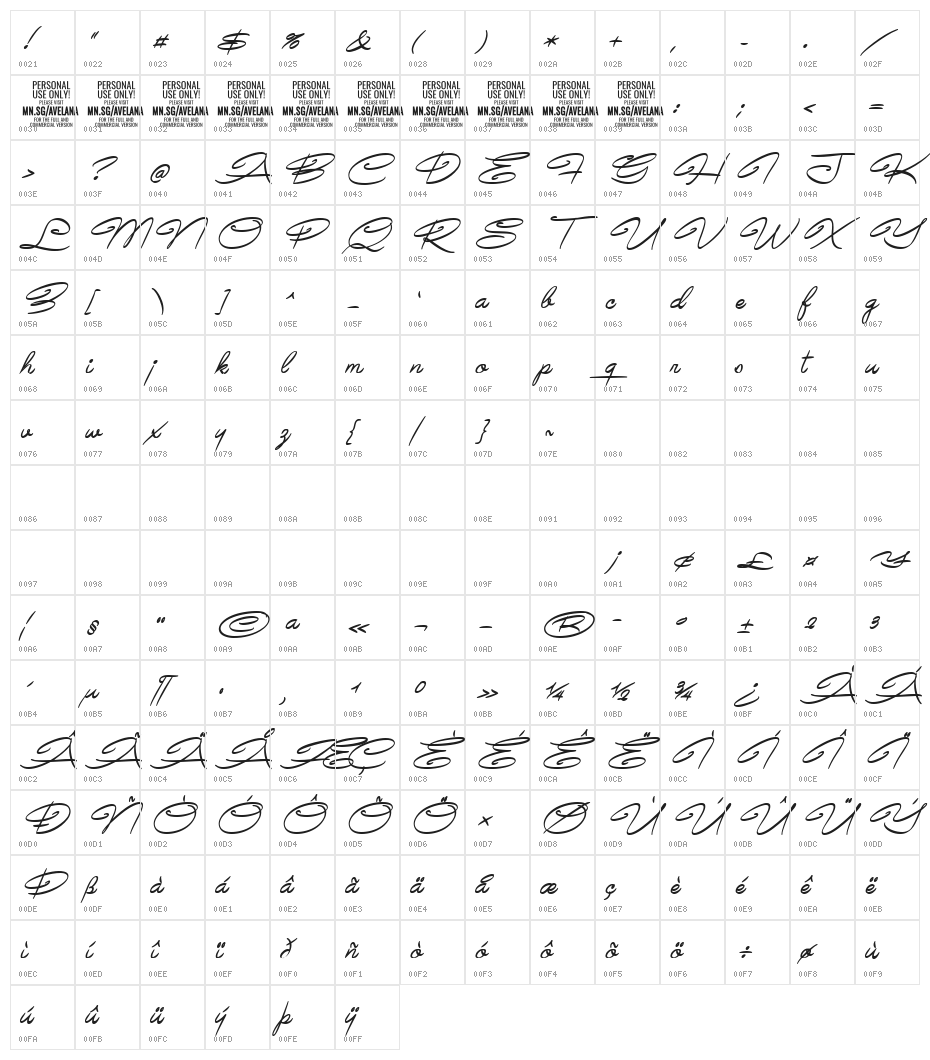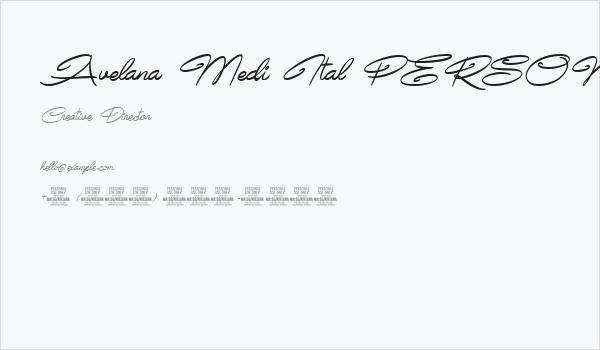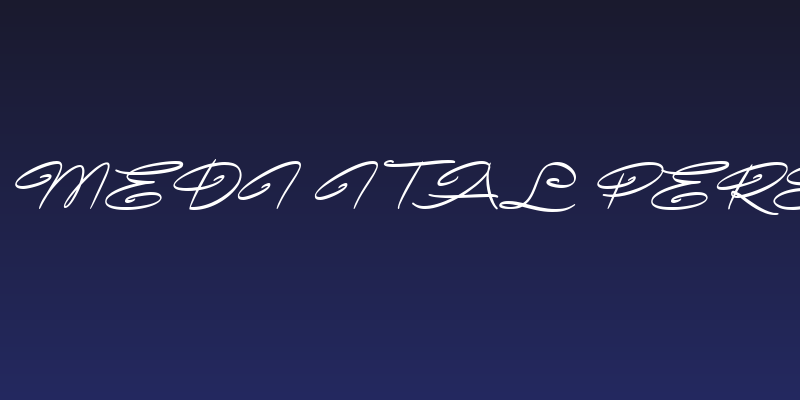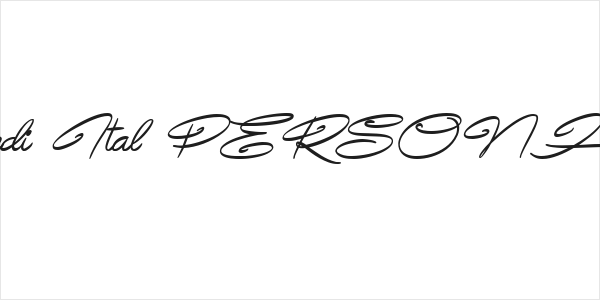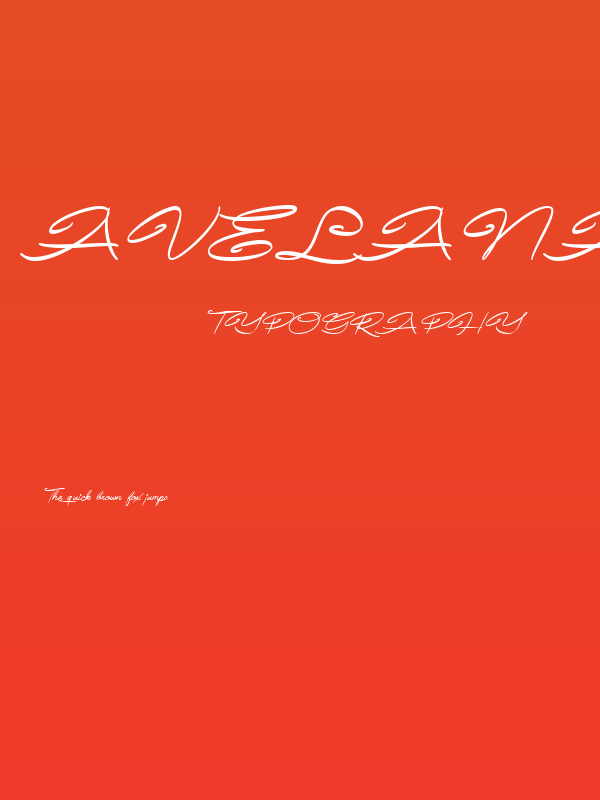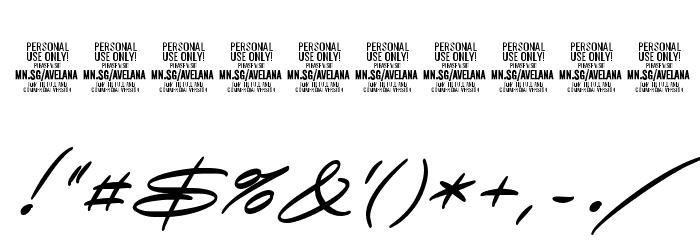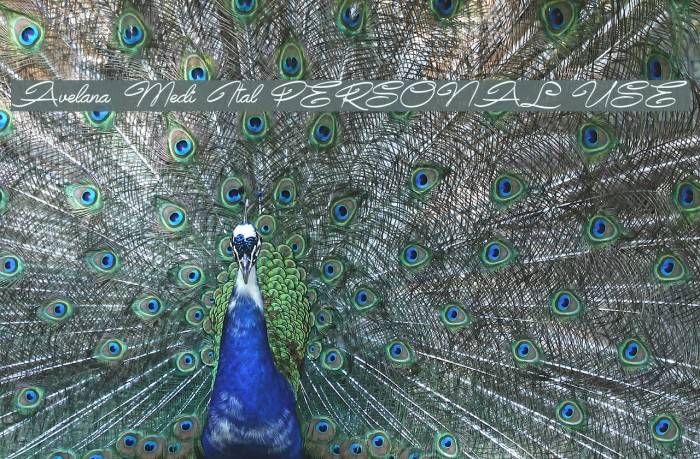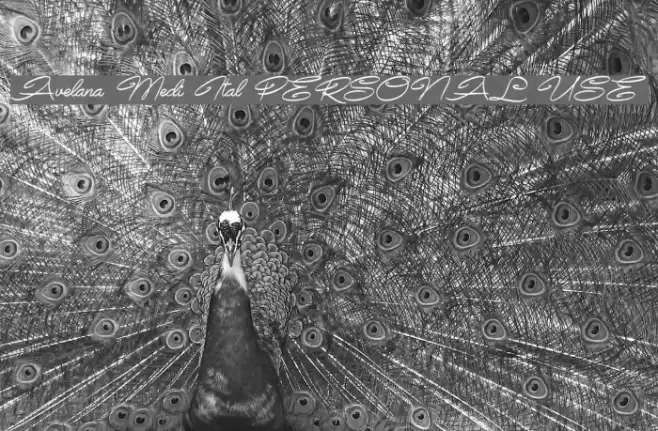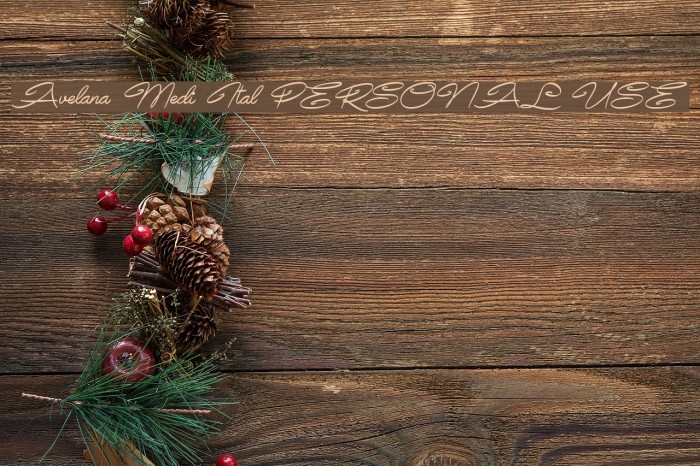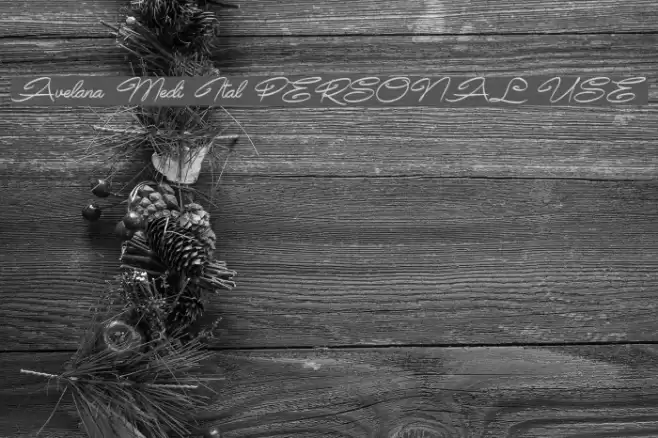
Avelana Medi Ital PERSONAL USE Font
Avelana Medi Ital PERSONAL USE Description
This font features an elegant and flowing script style, characterized by its smooth, cursive letterforms. The uppercase letters exhibit a graceful, looping design, while the lowercase letters maintain a consistent, fluid motion. The font's strokes are moderately thick, providing a balanced contrast that enhances readability while maintaining an artistic flair. The special characters are seamlessly integrated, matching the overall aesthetic with their stylish curves and loops. This font exudes a sense of sophistication and creativity, making it suitable for projects that require a personal, handwritten touch.
| Overall Style | Elegant, Artistic |
| Use Case | Logos, Invitations, Personal Branding |
| Proposed Projects | Ideal for wedding invitations, greeting cards, personal branding, and artistic projects. |